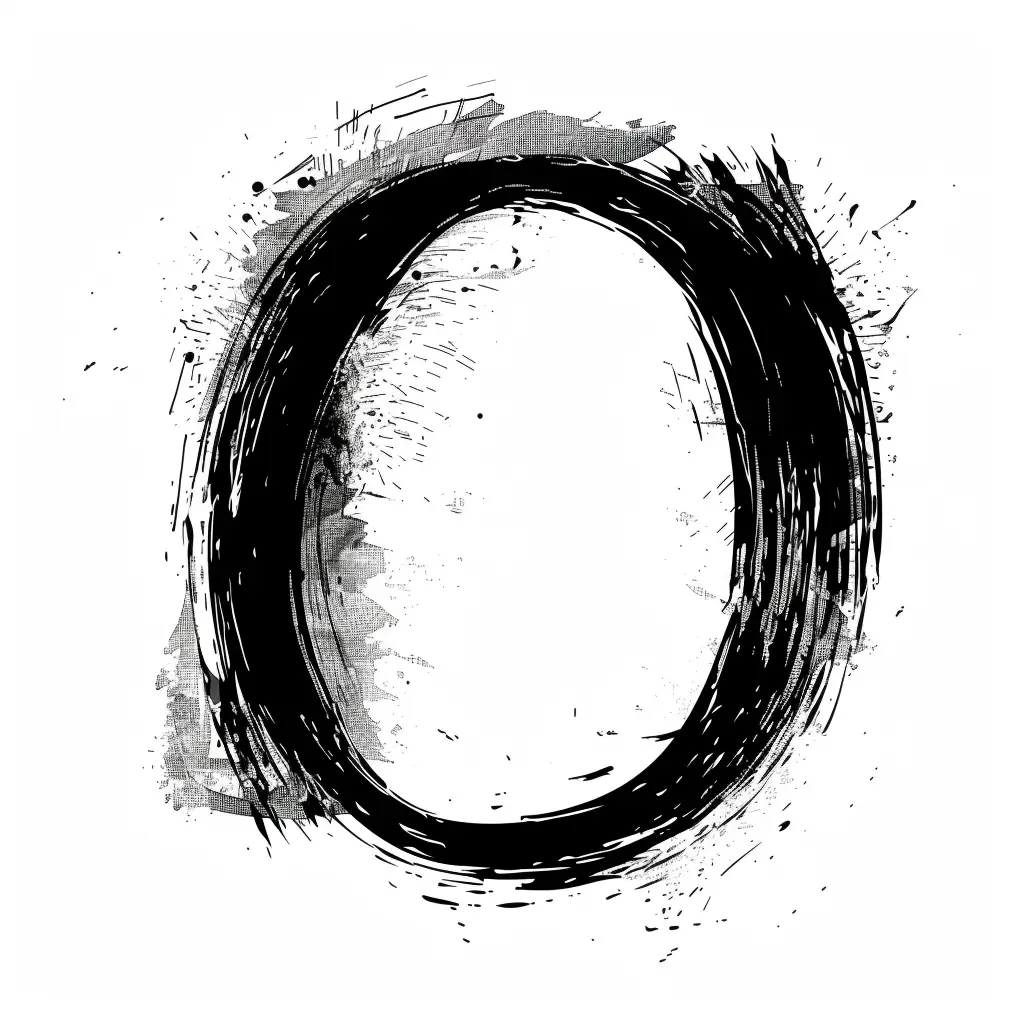
This image features a bold, hand-drawn black circular shape on a white background, rendered in a rough, expressive brushstroke style. The circle is surrounded by splatters, smudges, and textured gray shading, creating a dynamic, artistic effect. The high-contrast black-and-white palette emphasizes the raw, sketch-like quality of the composition.